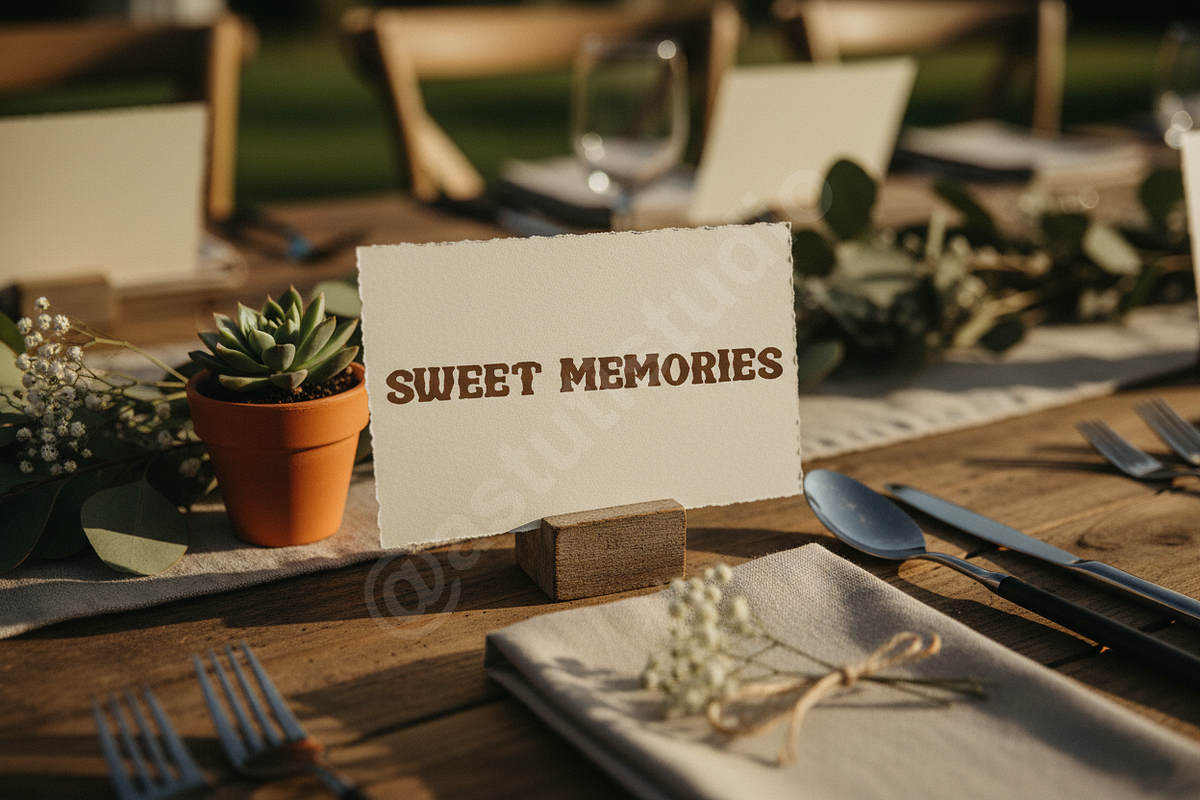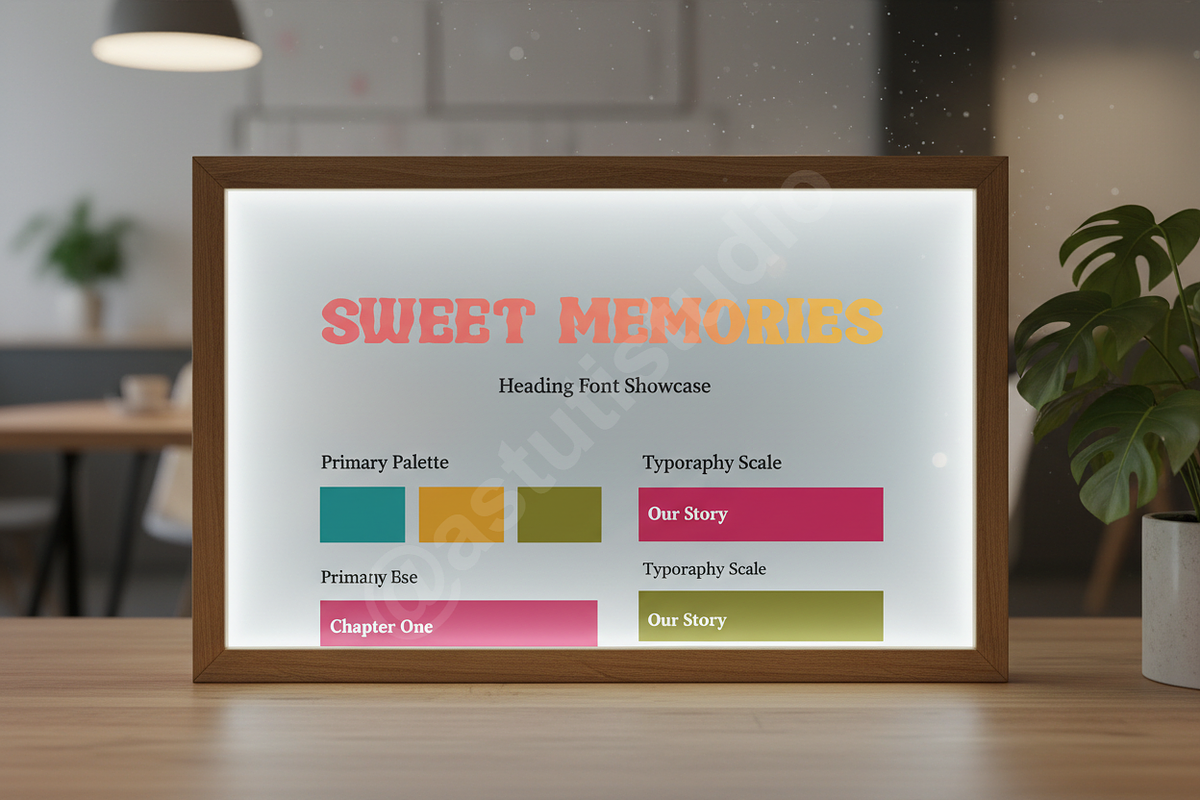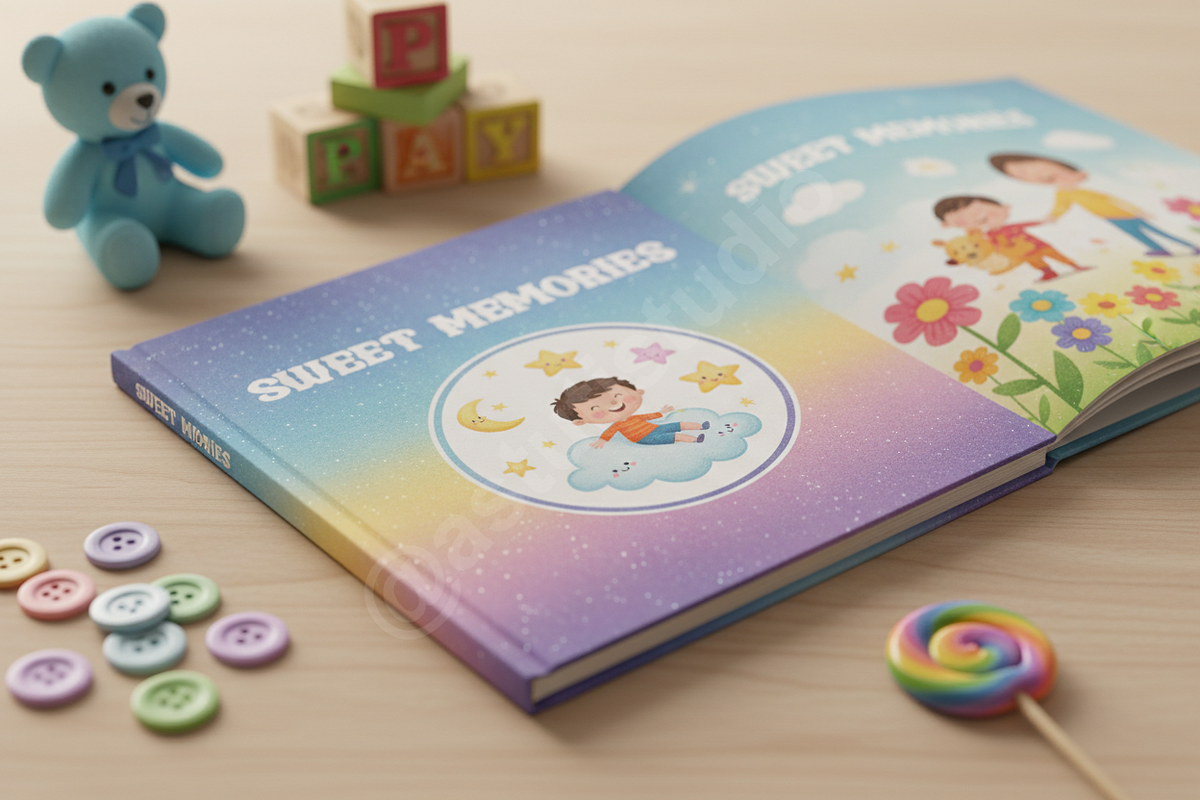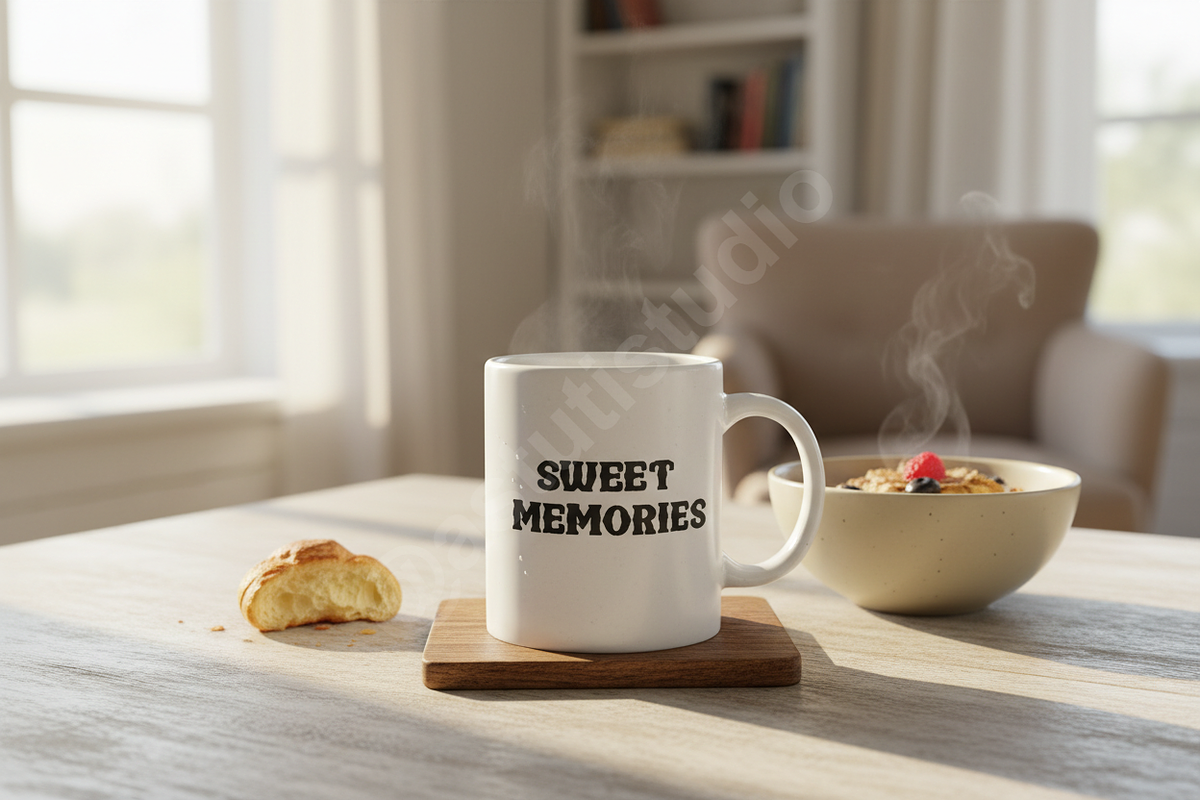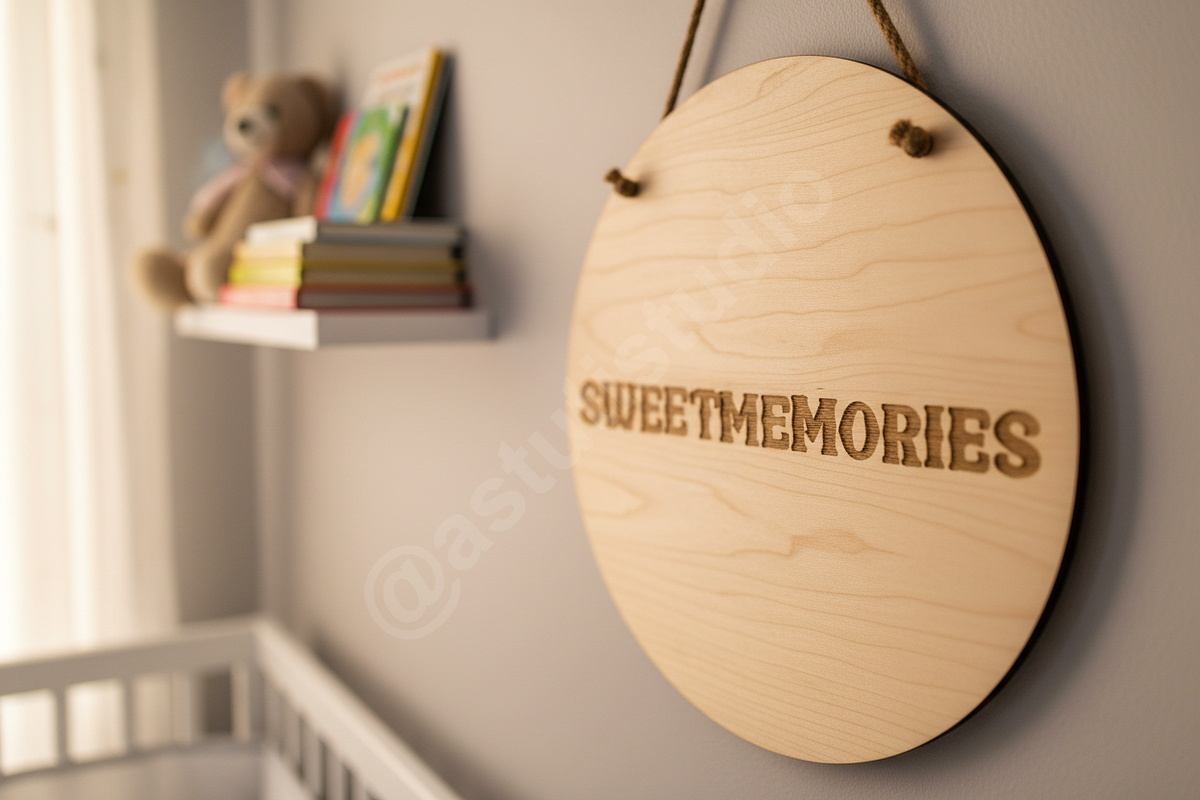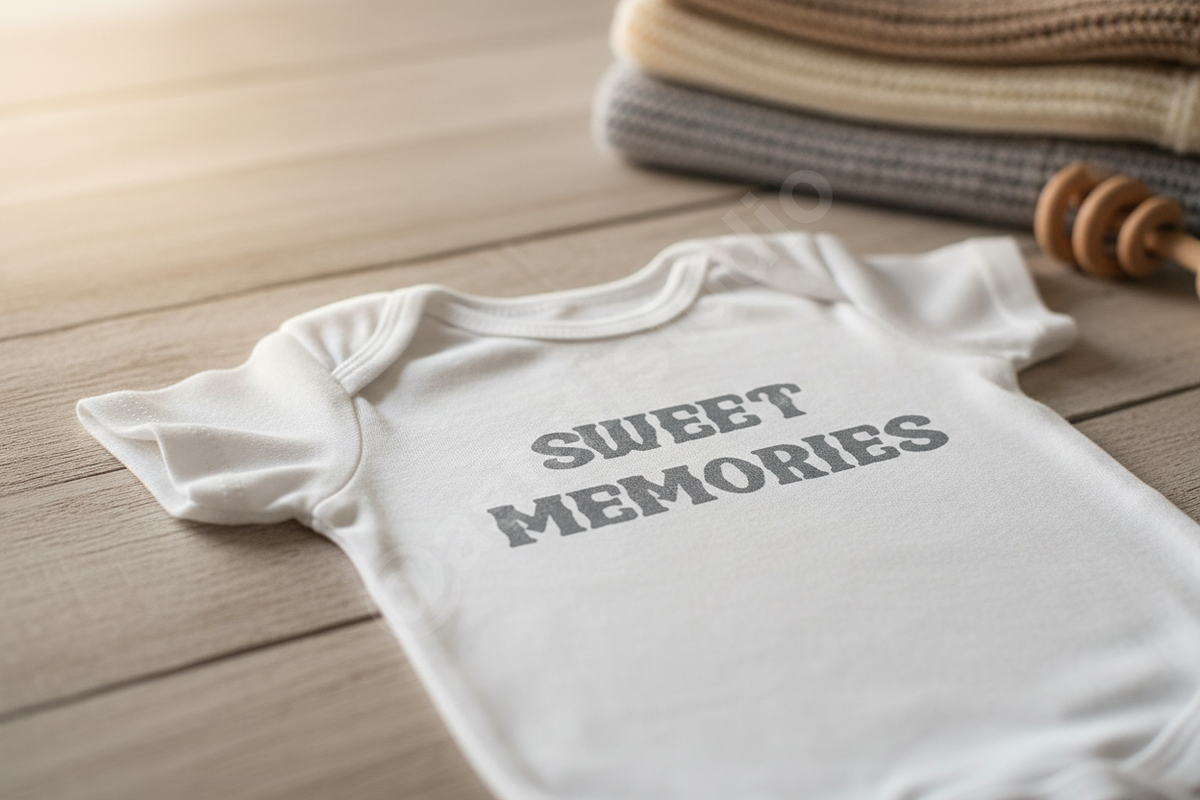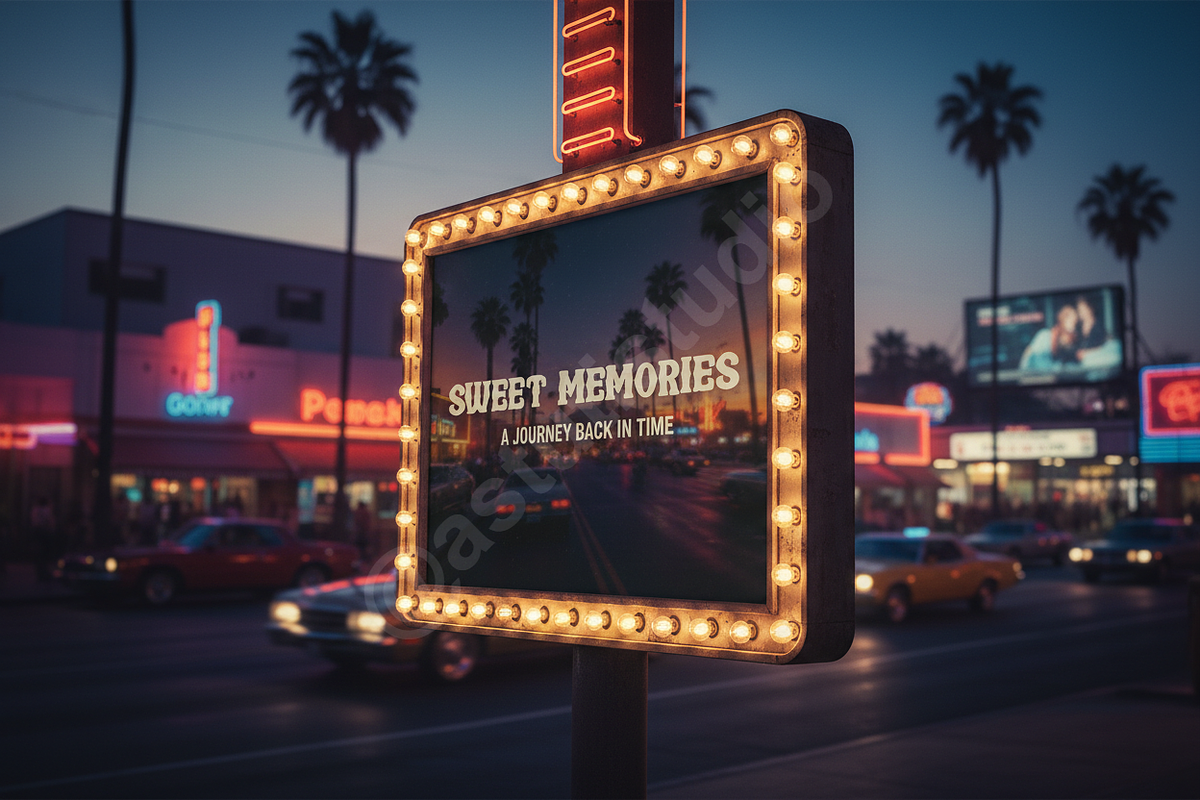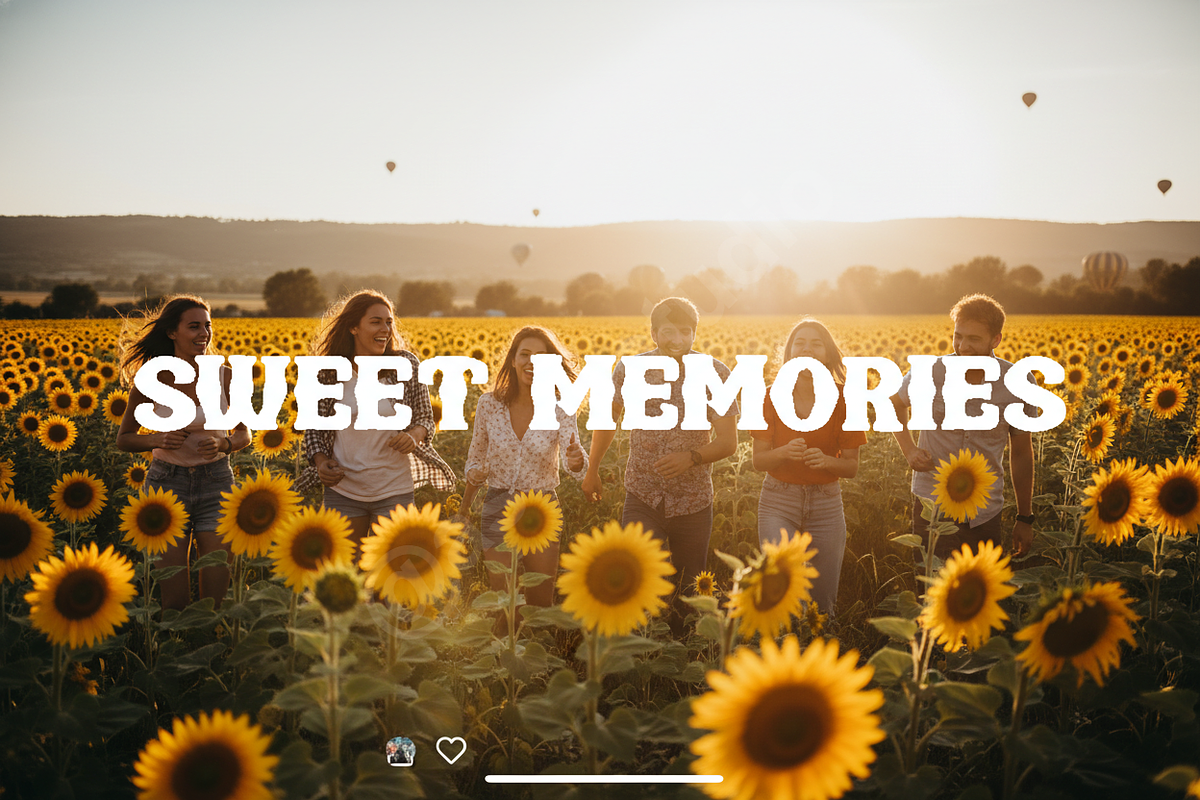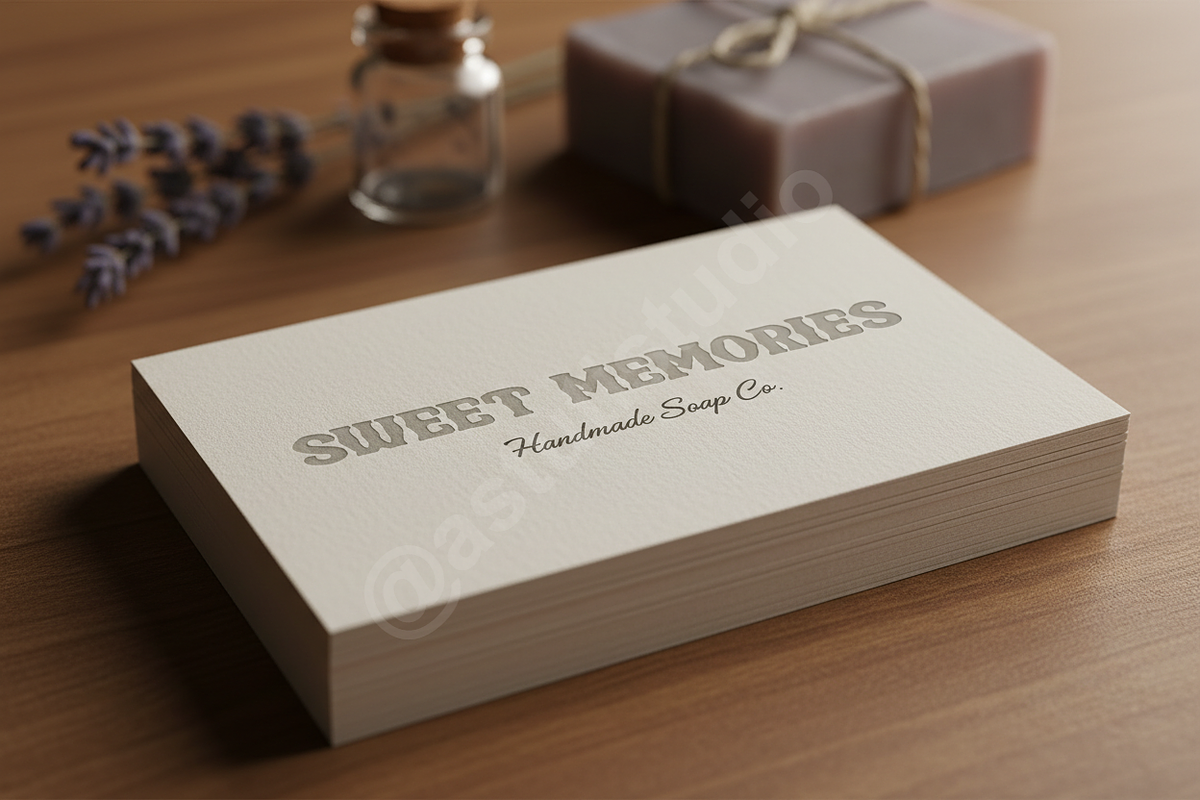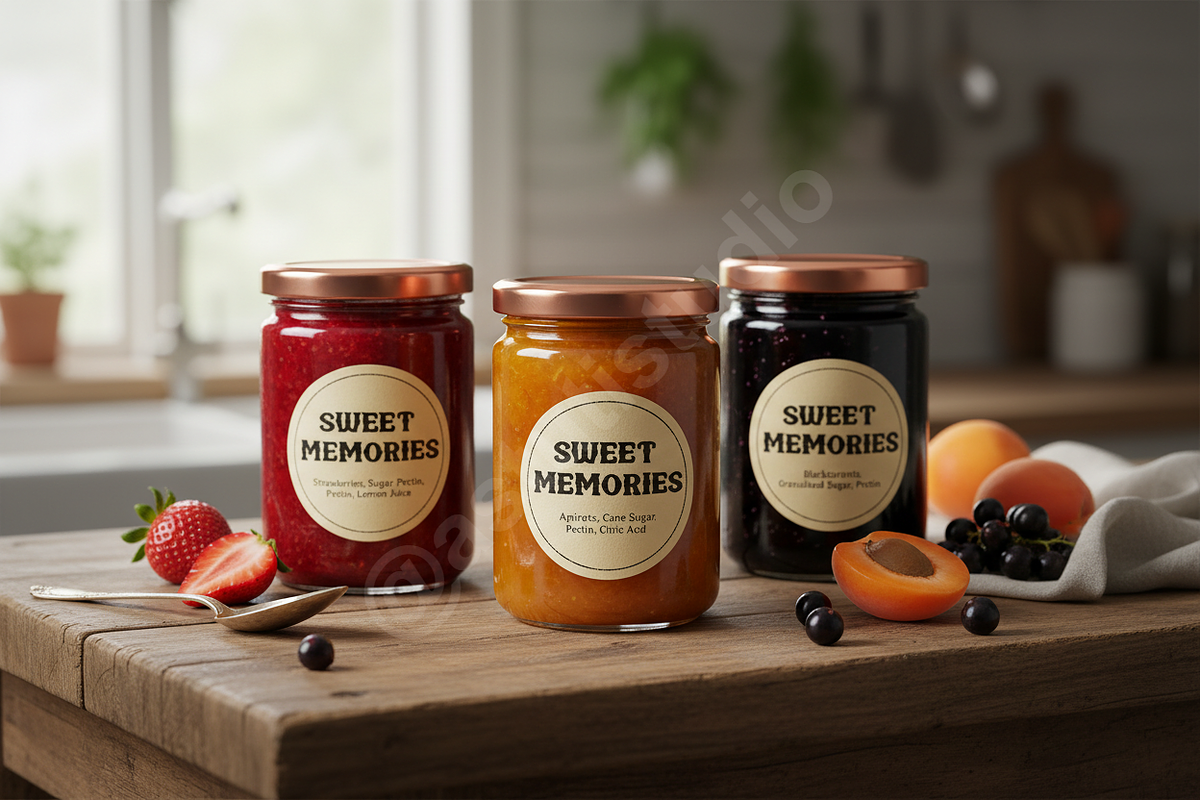
Piqi - Elegant Modern Serif Typeface
PIQI – A SOPHISTICATED MODERN SERIF
Elevate your visual identity with Piqi, a premium serif typeface meticulously crafted for the modern creative studio. Inspired by high-fashion editorial aesthetics, Piqi balances timeless elegance with contemporary clean lines, making it the definitive choice for luxury branding and sophisticated design projects.
Piqi is designed to command attention while maintaining a sense of refined minimalism. Whether you are crafting a high-end logo, designing a sleek magazine layout, or curating a professional social media presence, this font provides the versatility and polish required for premium results.
- Elegant proportions and high-contrast strokes
- Extensive OpenType features including unique ligatures
- Full multilingual character support
- Optimized for both digital displays and high-resolution print
- Perfect for logos, editorial layouts, and high-end social media content
- Complete set of uppercase and lowercase letters
- Numbers, punctuation, and stylistic alternates